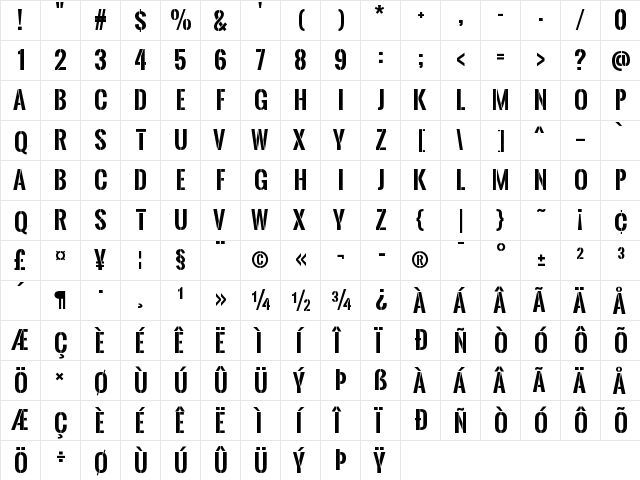
Oswald Stencil Bold
| Foundry | vernon adams |
| Designer | vernon adams |
Design Context for Oswald Stencil Typeface
Oswald Stencil has the rough pragmatism of spray-painted stencil signage, adding a raw, street-level authenticity to designs. Its bold stroke weight gives it real presence on the page.
A strong choice for packaging that needs edge, warehouse aesthetics, and rough-and-ready visual identities.
Pro Tip: Use Oswald Stencil at large sizes on packaging, posters, or apparel where the stencil cutaways read clearly. Avoid small sizes where those gaps become visual noise.